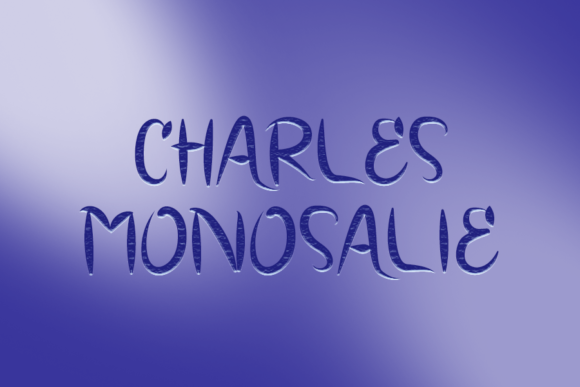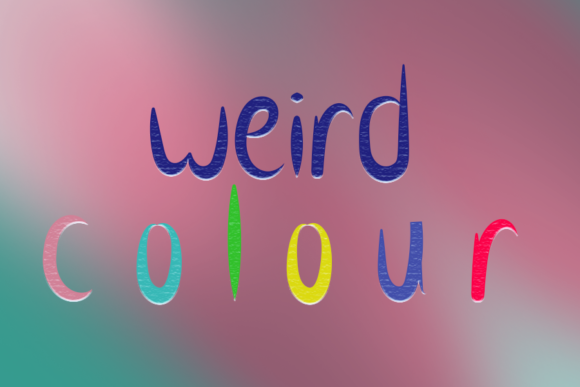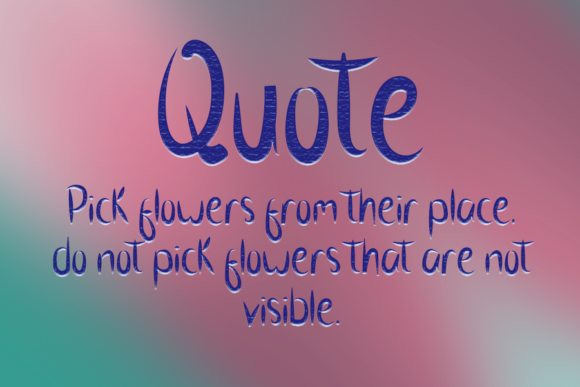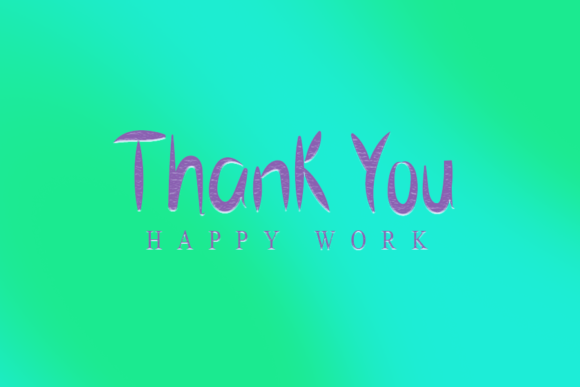
Brush Scoot Font
About Brush Scoot Font
Brush Scoot is a beautiful handwritten font, masterfully designed to become a true favorite. Fall in love with its incredibly versatile style and use it to create gorgeous wedding invitations, beautiful stationary art, eye-catching social media posts, and much more!